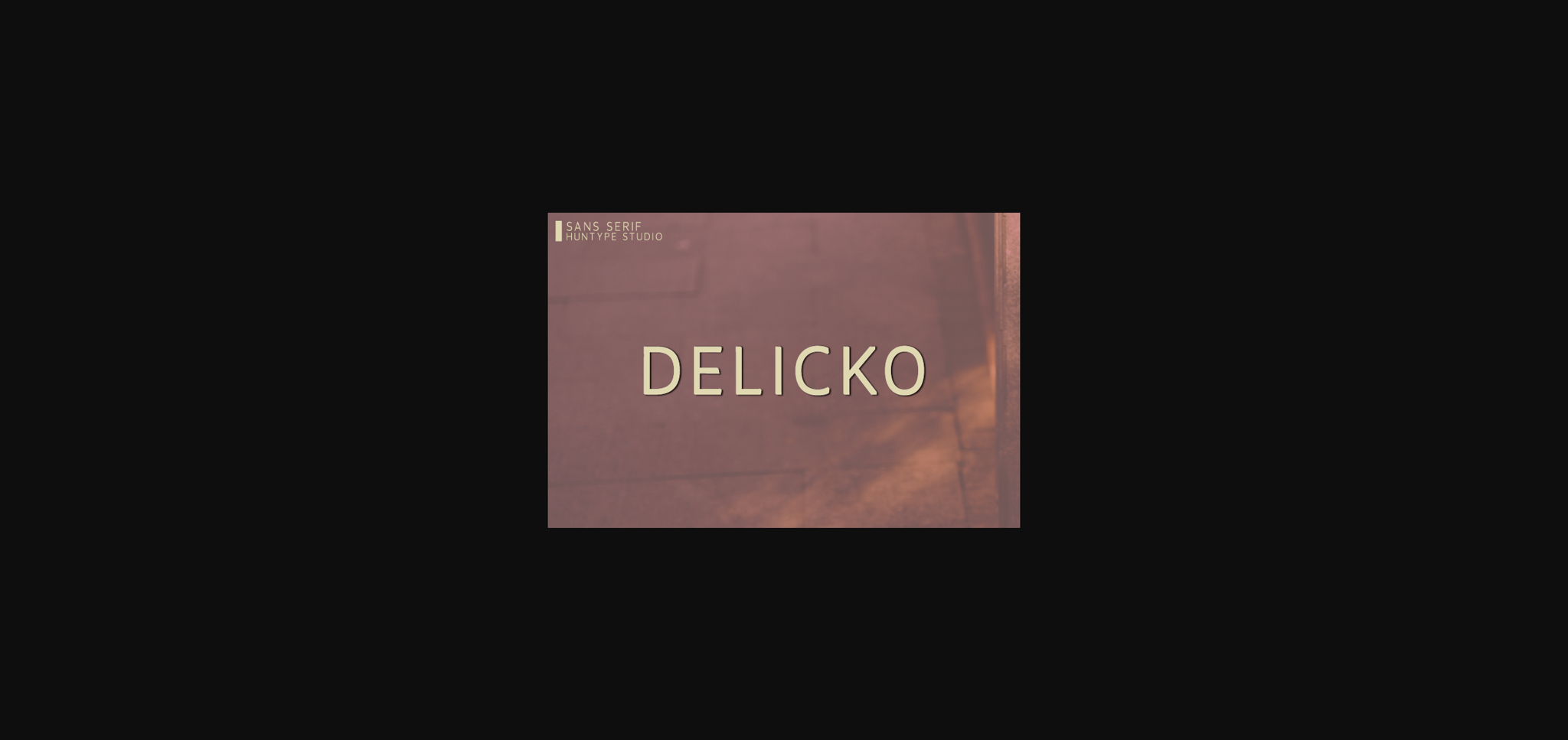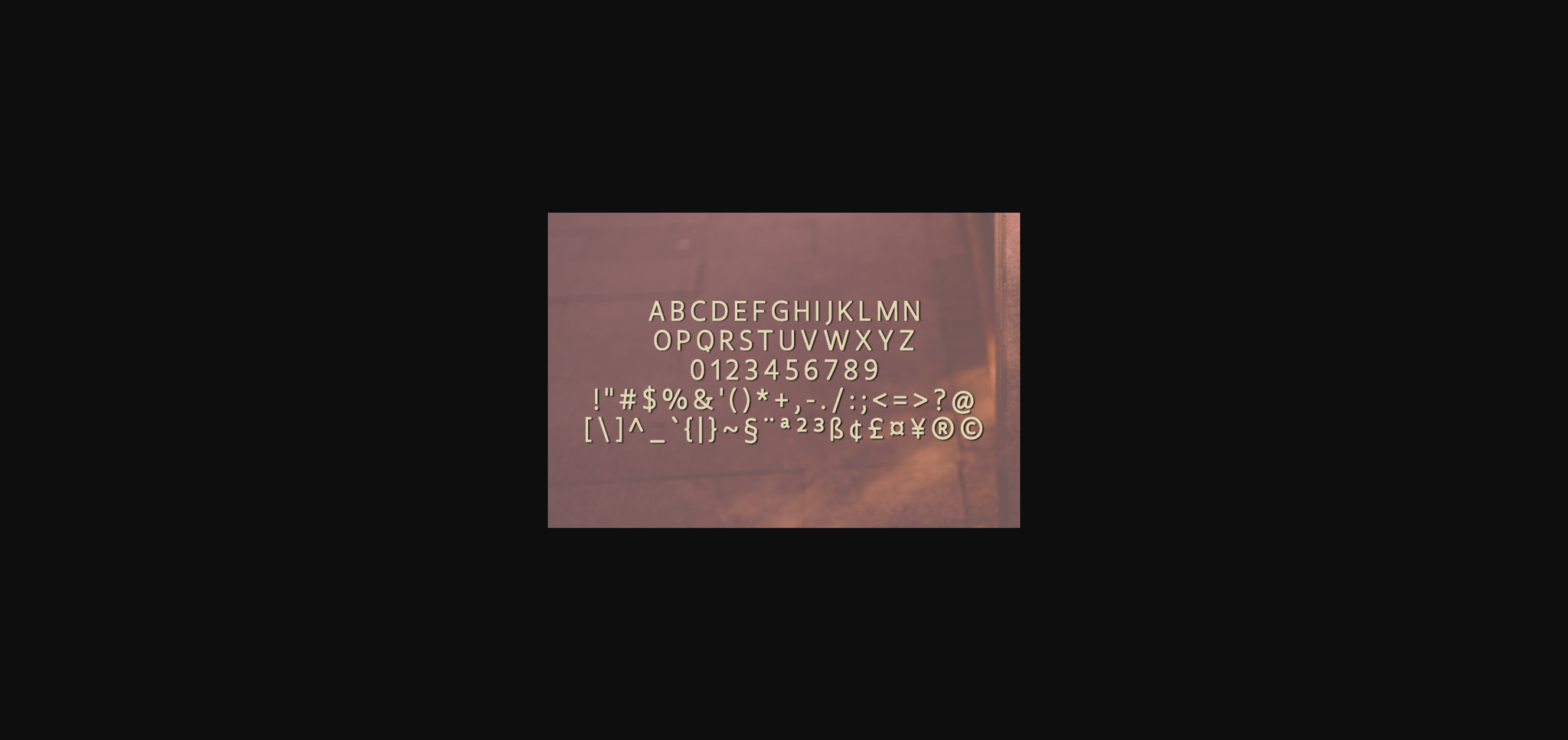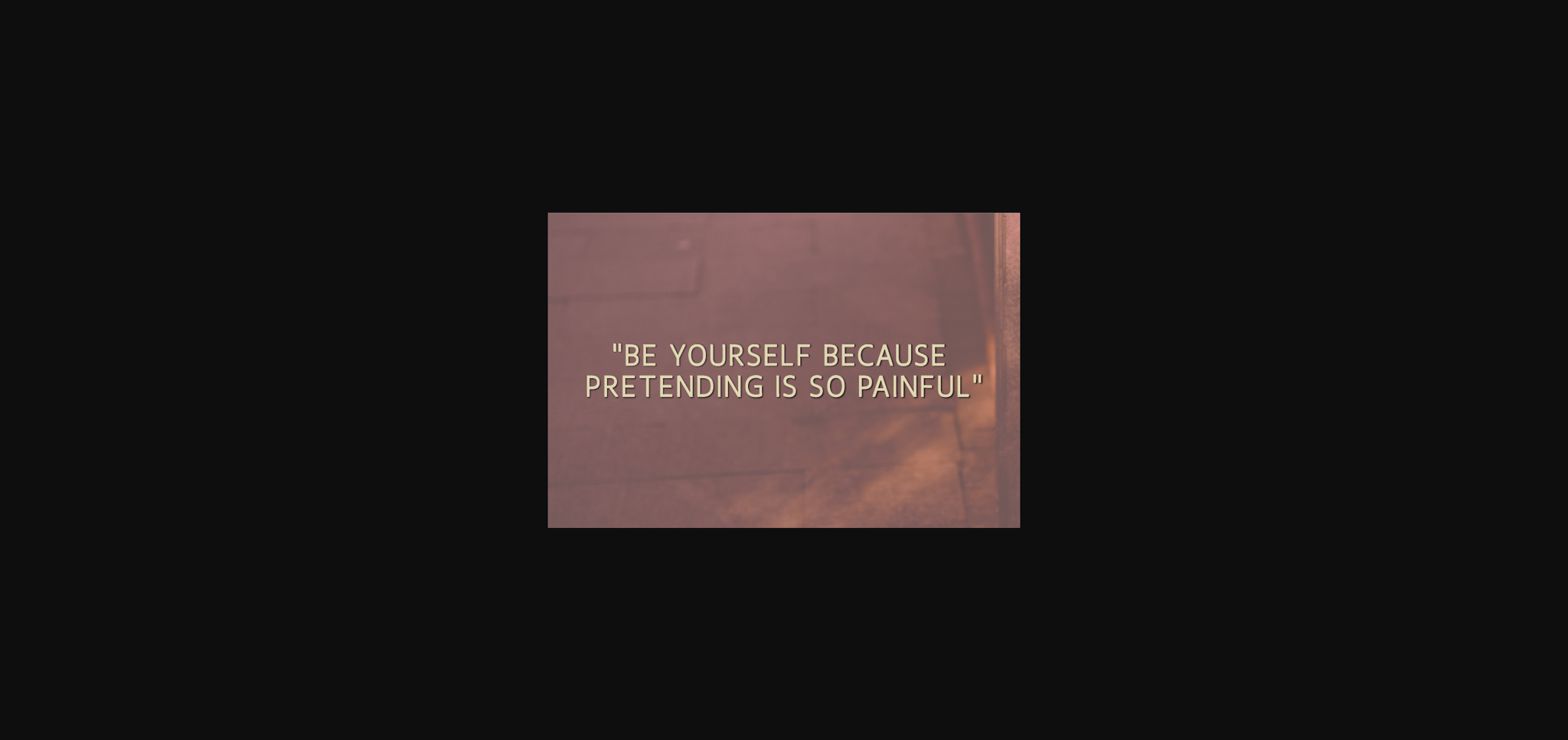
About Delicko Font
Delicko is a minimal and neat sans serif font. It can easily be matched to an incredibly large set of projects, so add it to your creative ideas and notice how it makes them stand out!